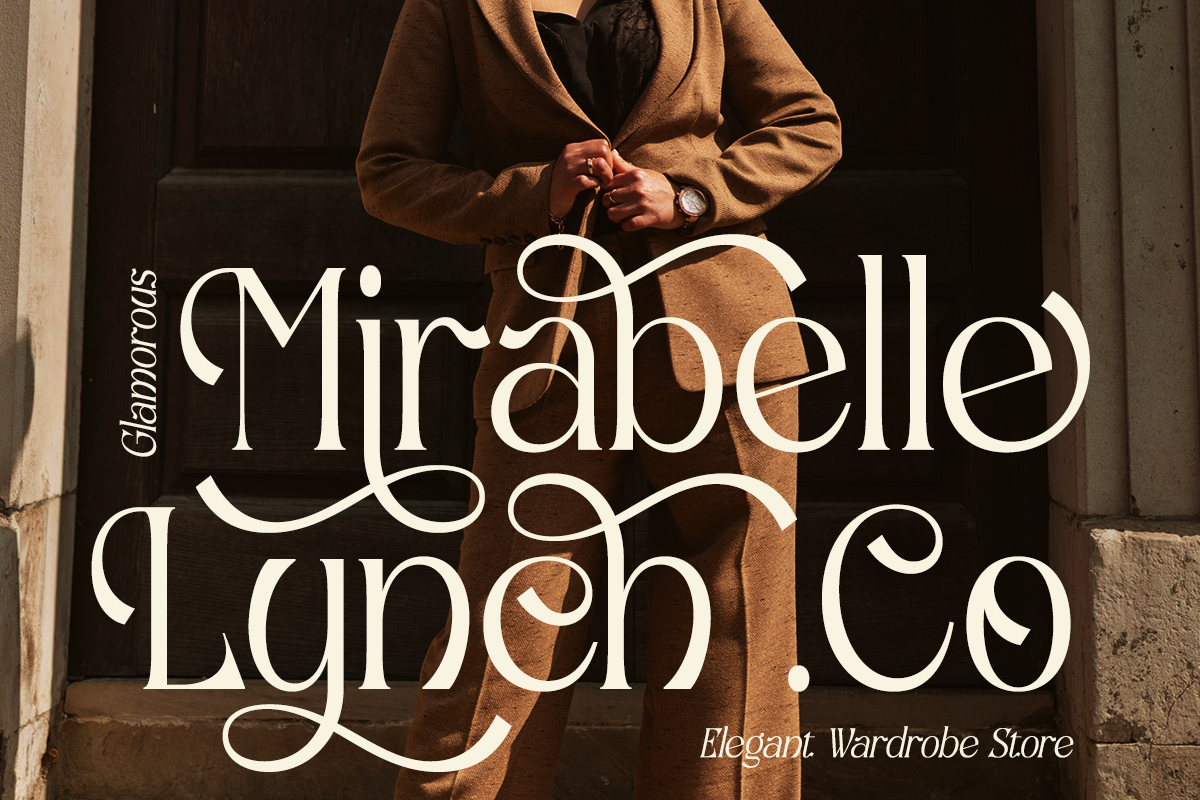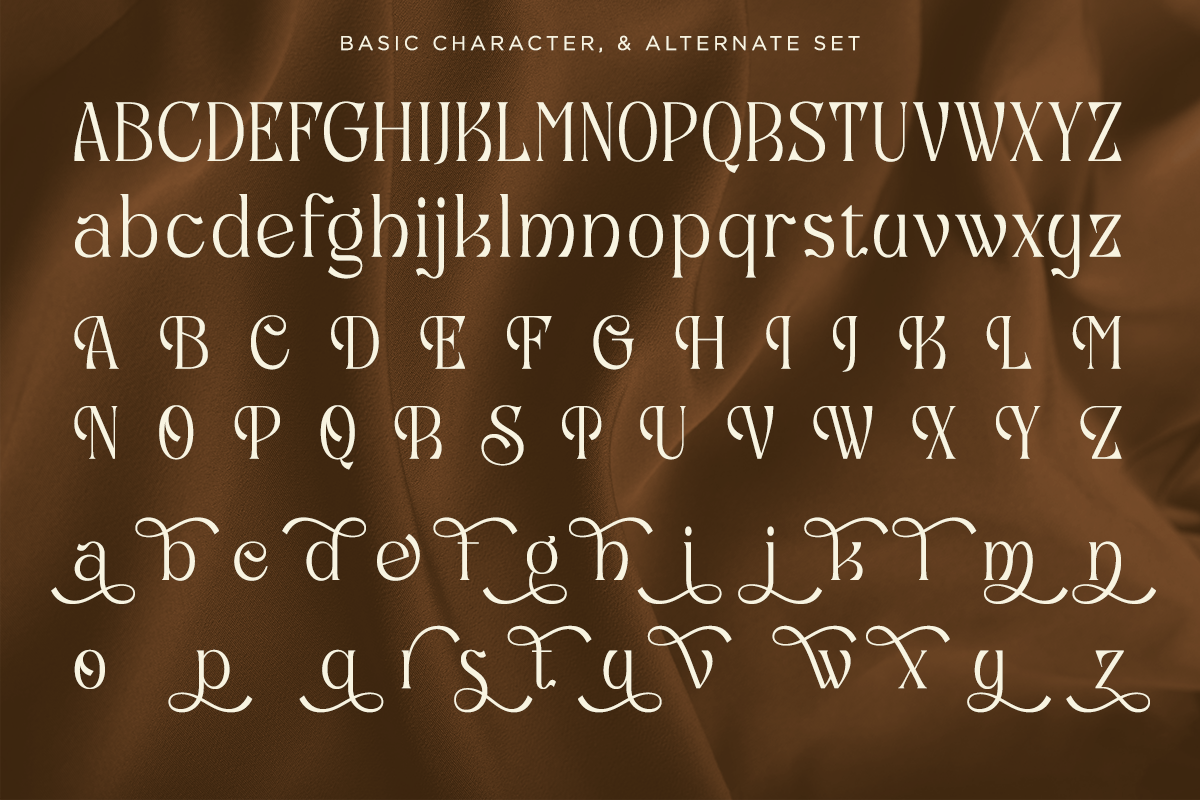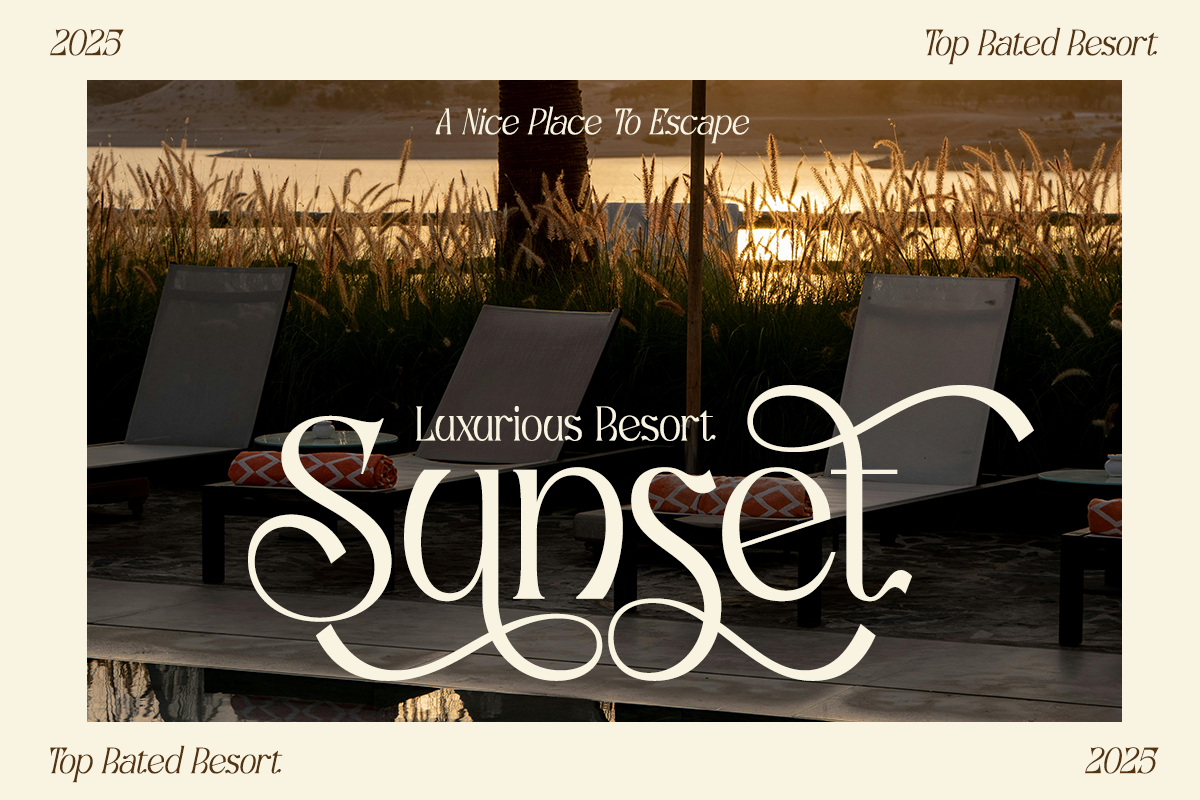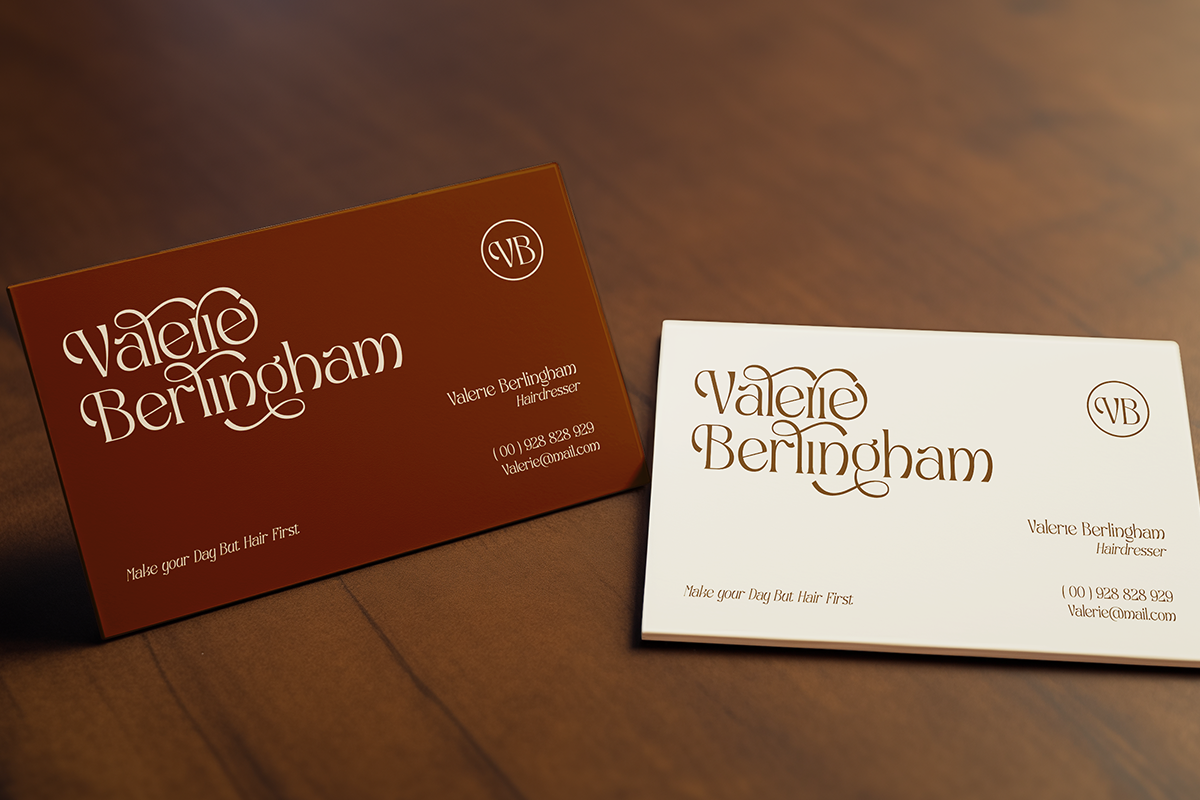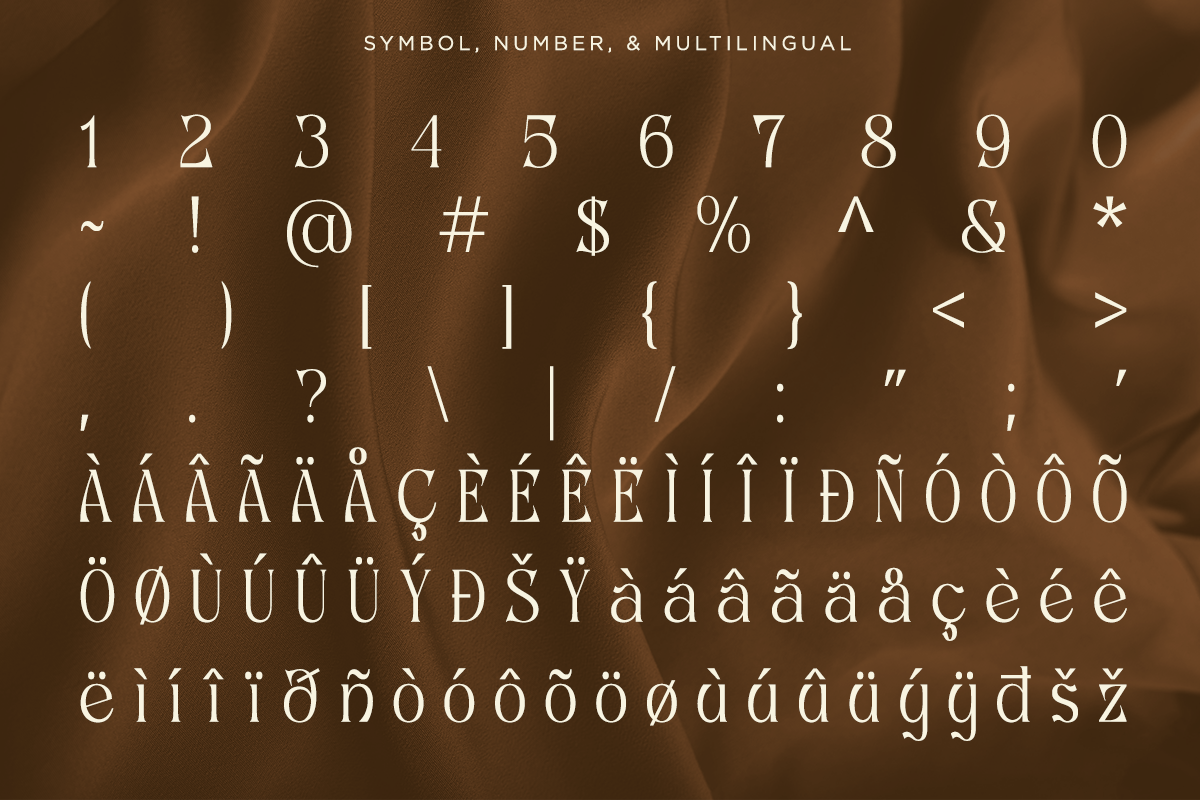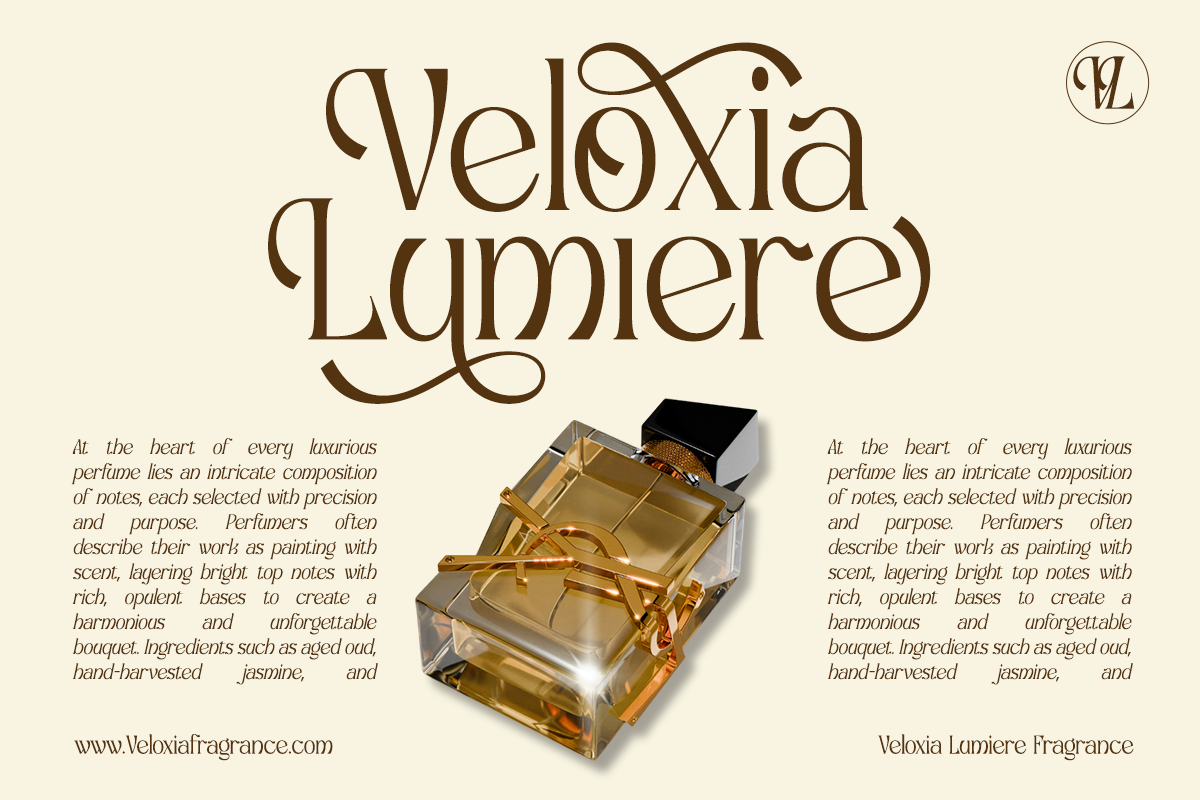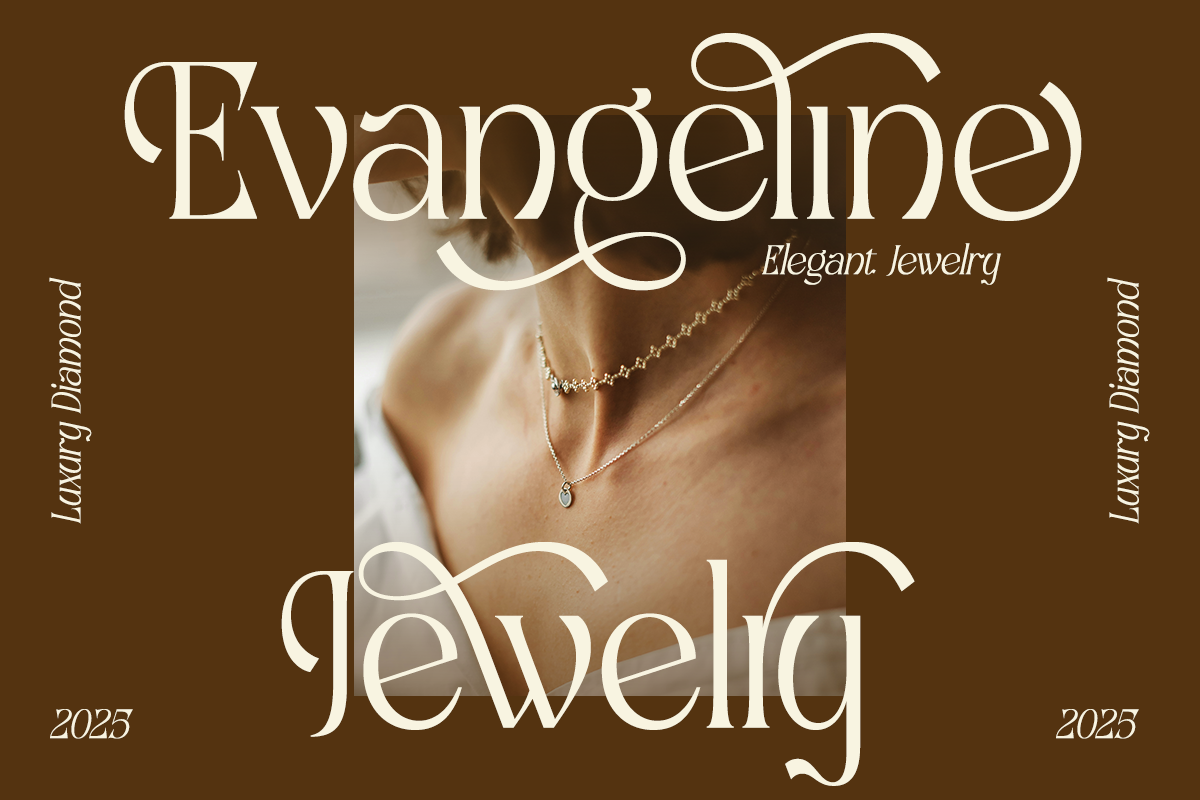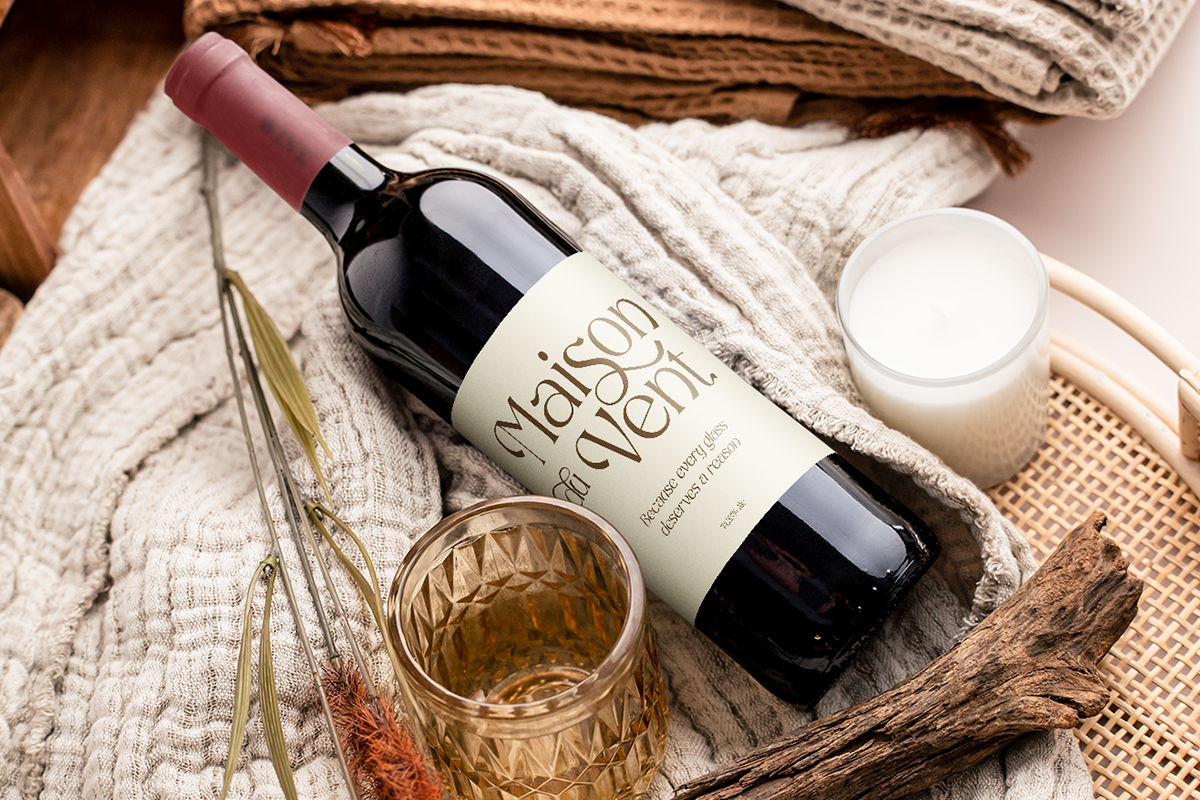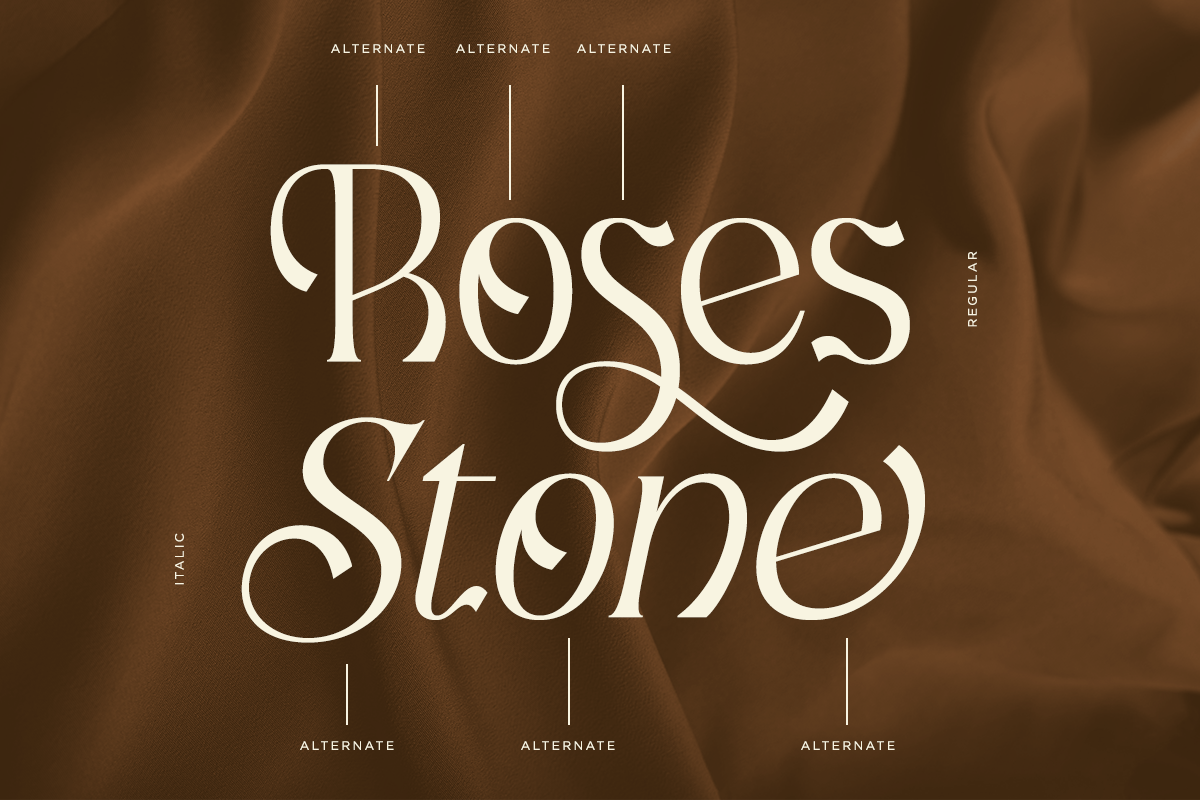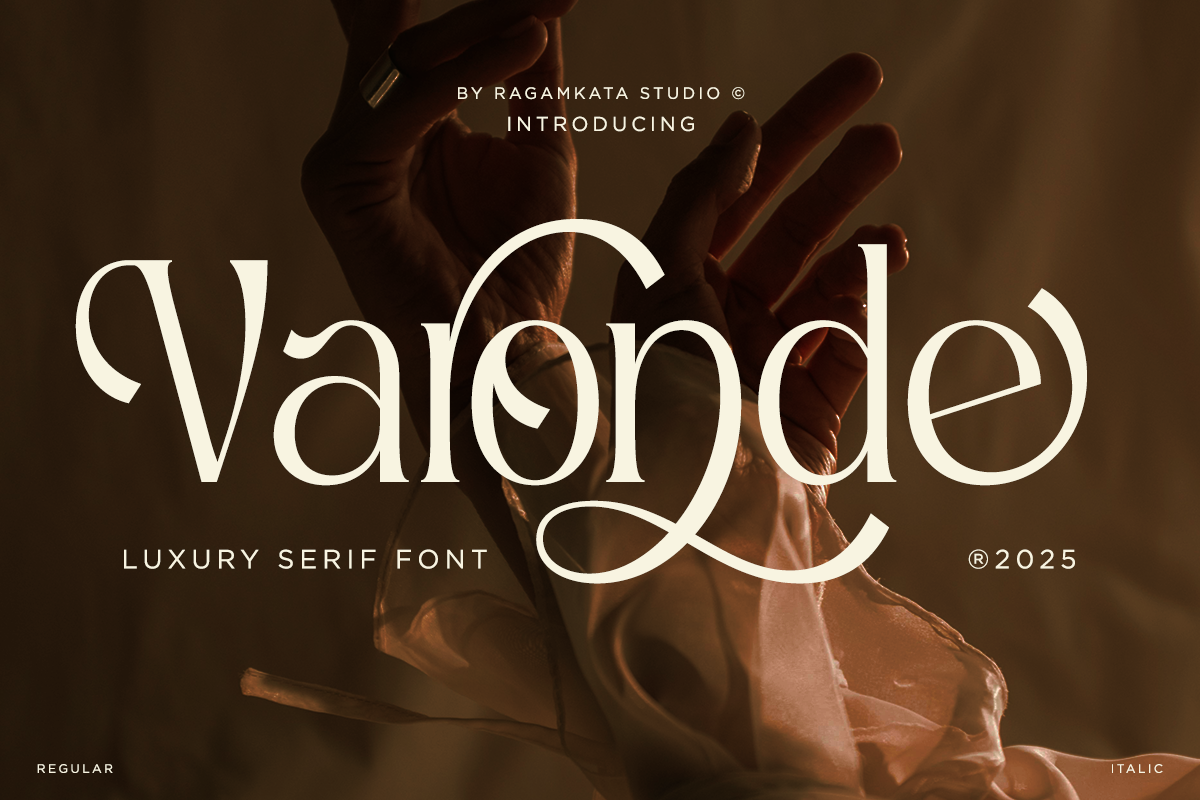
Varonde - Luxury Serif Font
Varonde is a luxury serif typeface featuring distinctive curves that bring an elegant, refined touch to any project. Packed with numerous stylistic alternates, it’s perfect for creating striking, memorable designs such as quotes, invitations, wordmark logos, branding, and more. It also includes star elements to make your visuals shine even brighter.
- Stylish Alternates Set
- Number, and Symbol